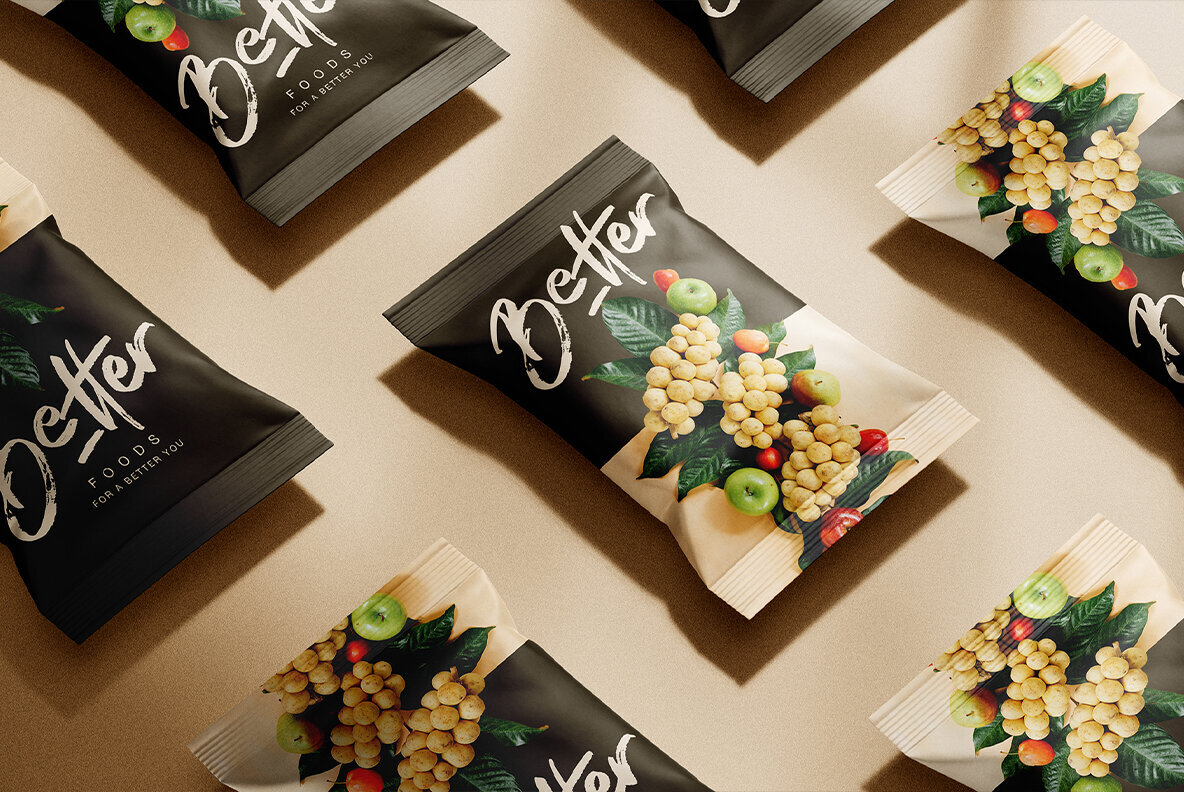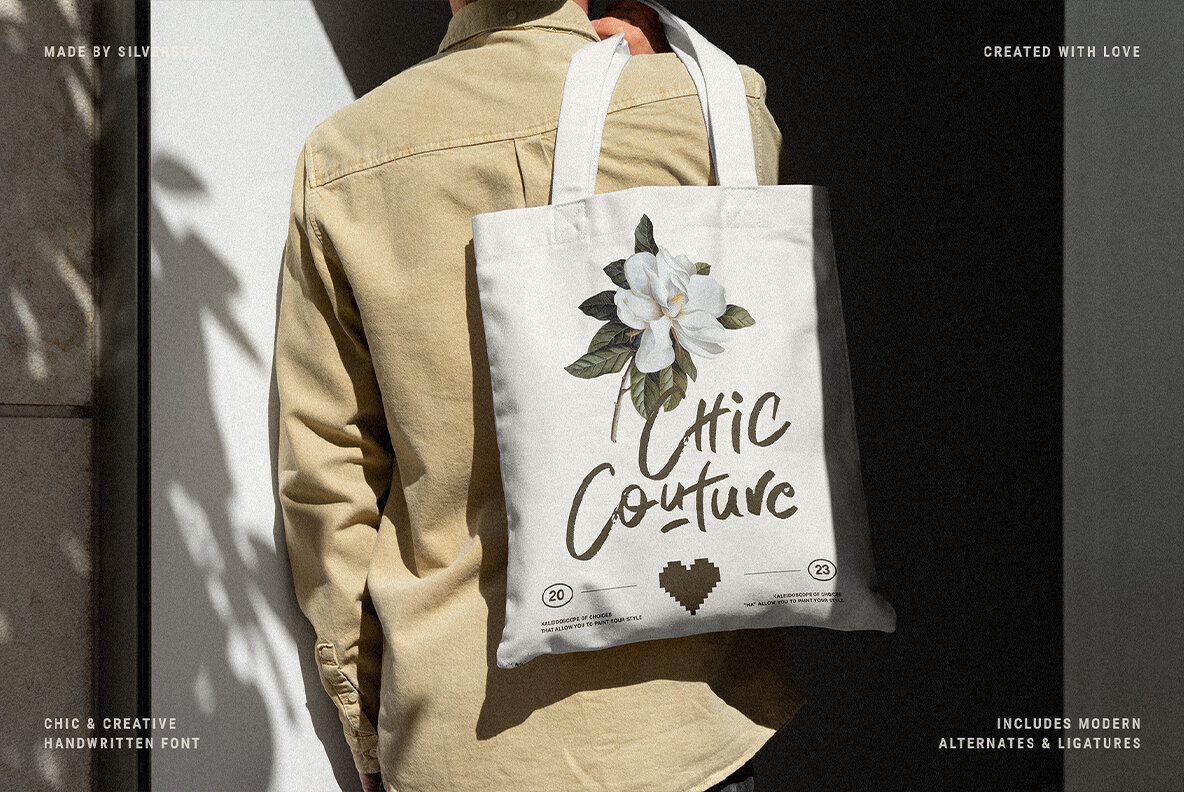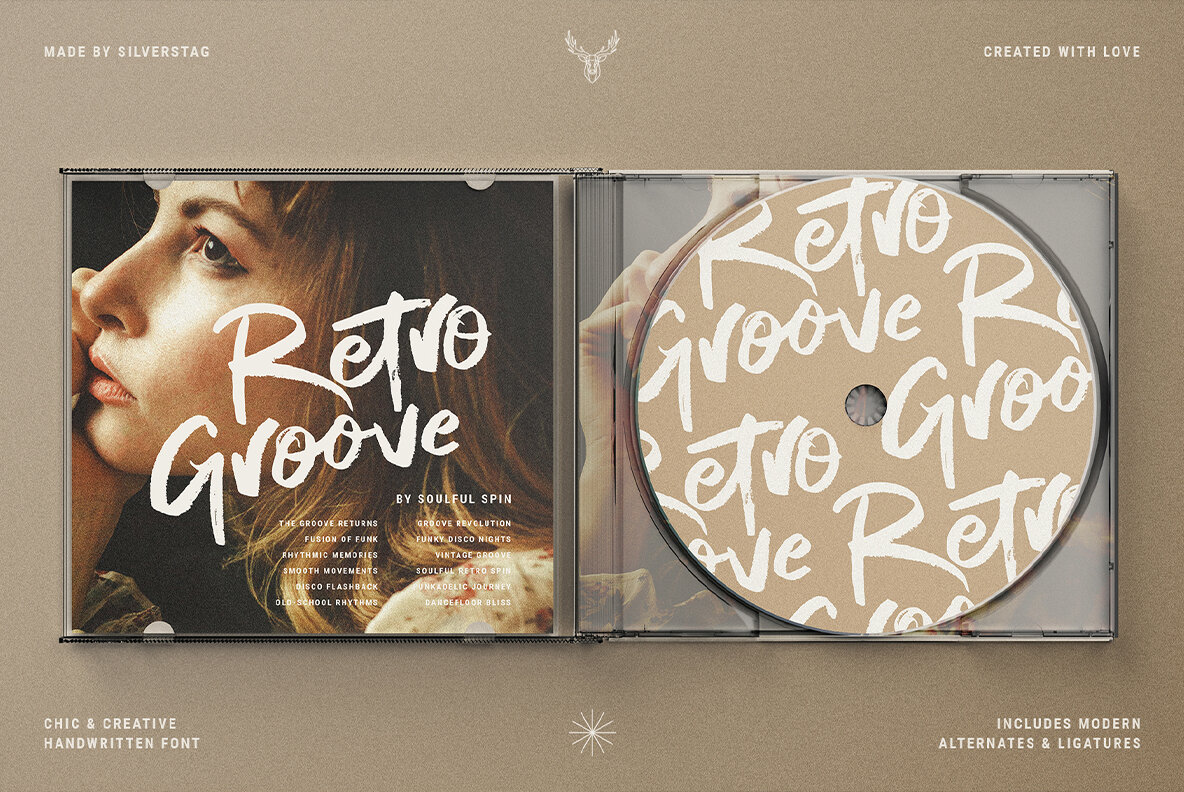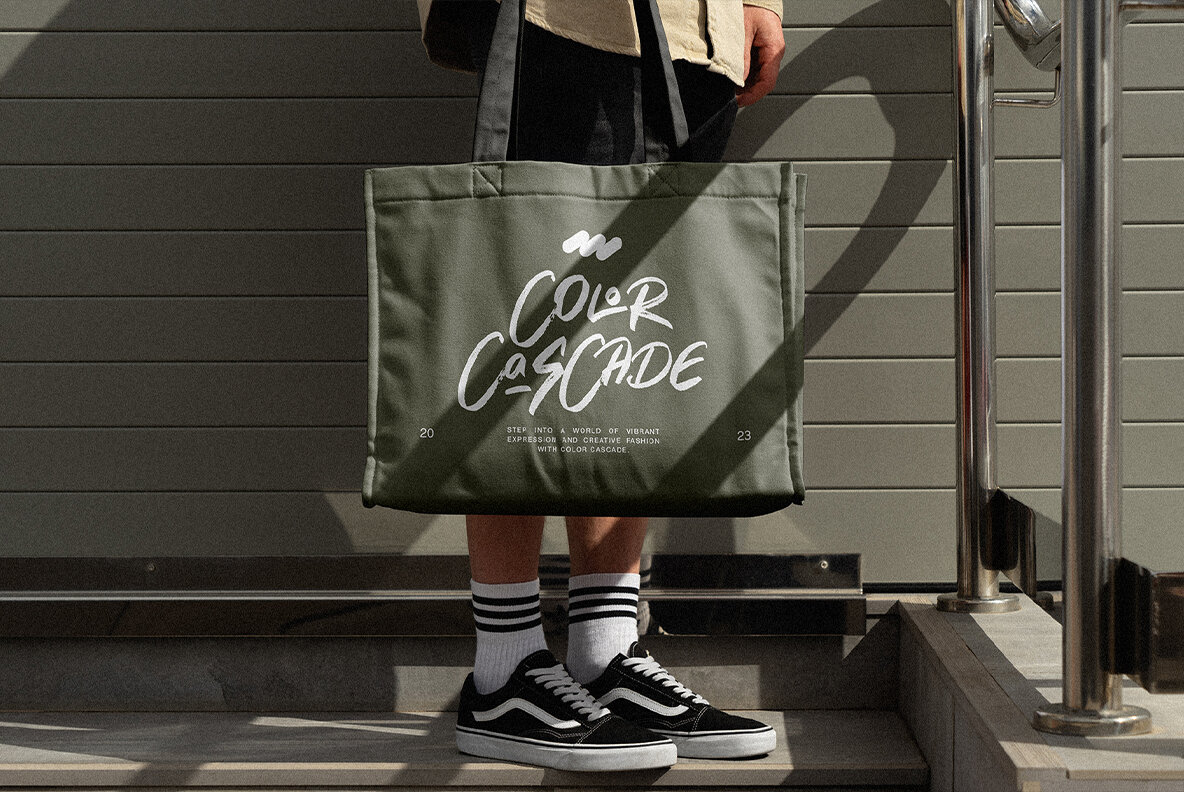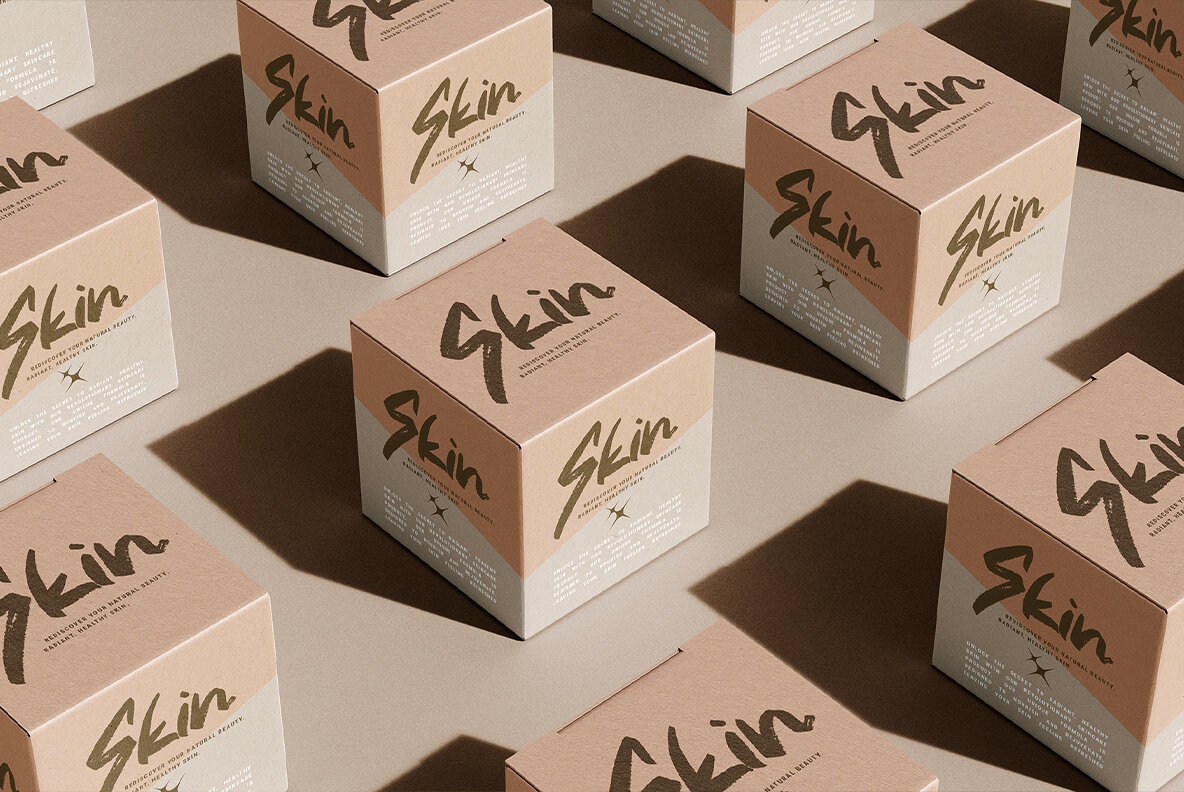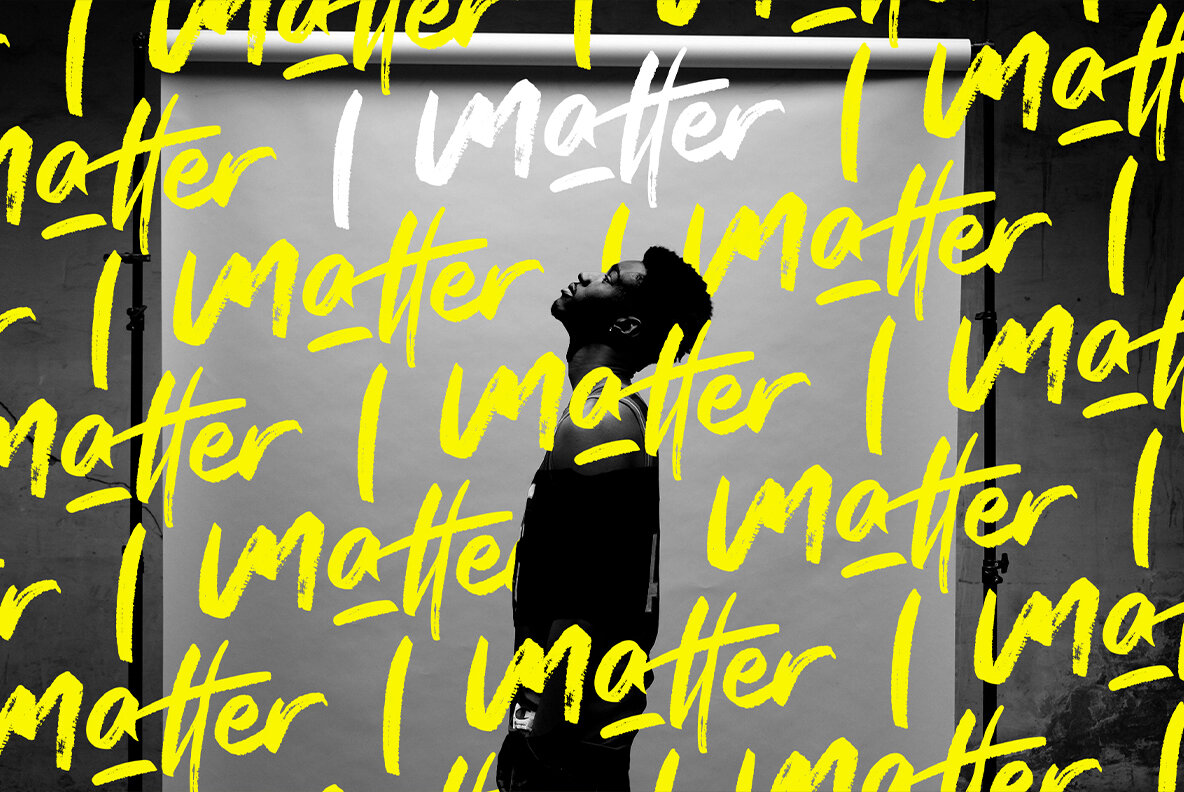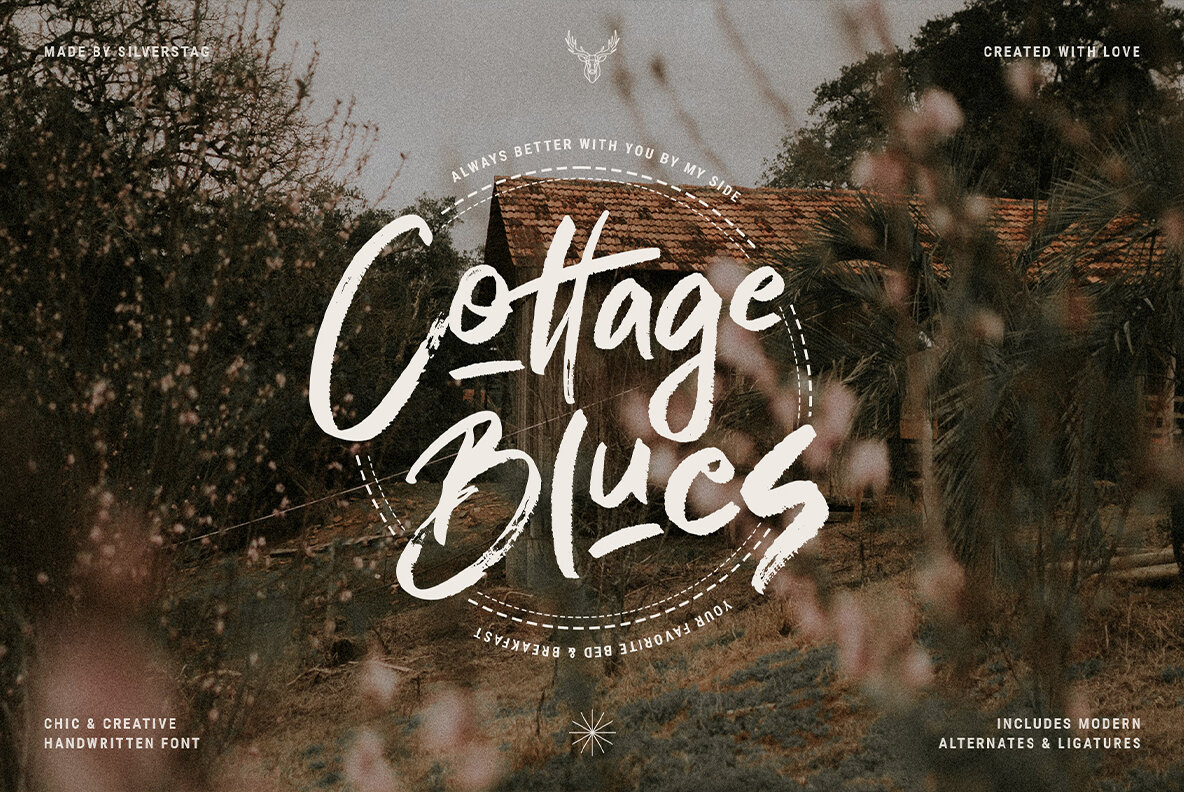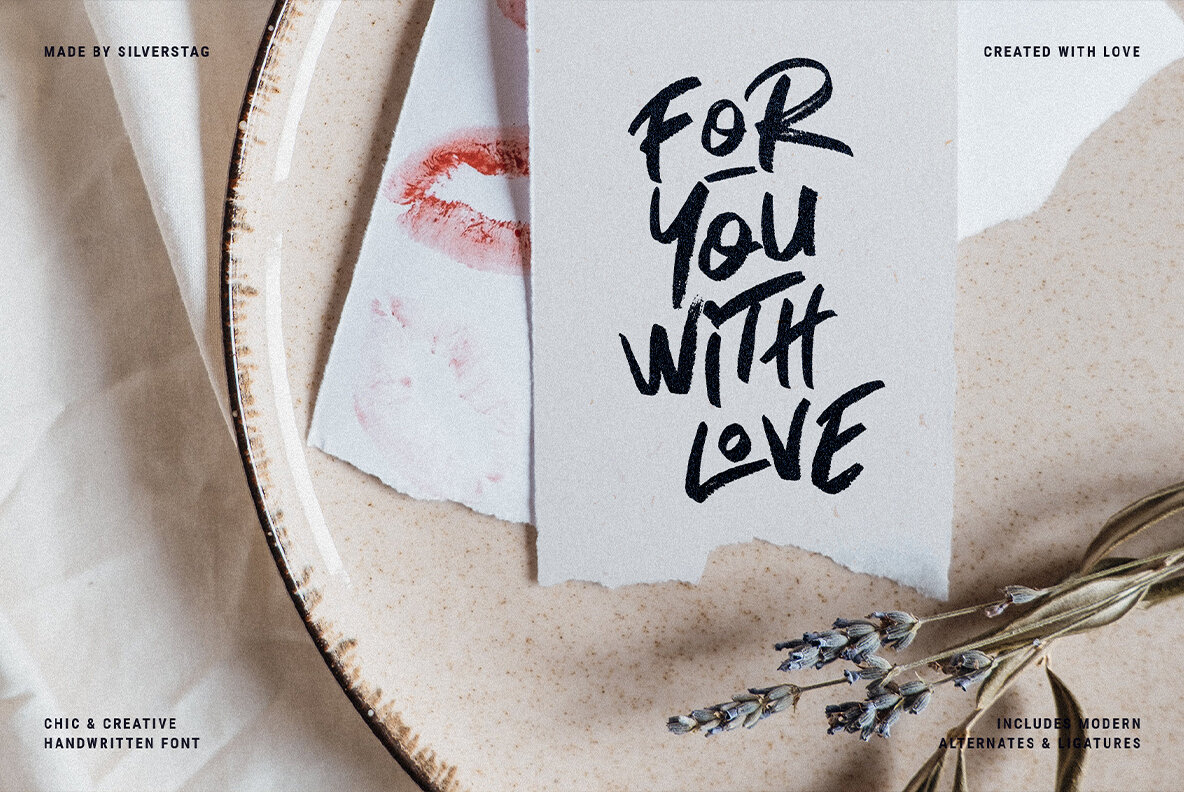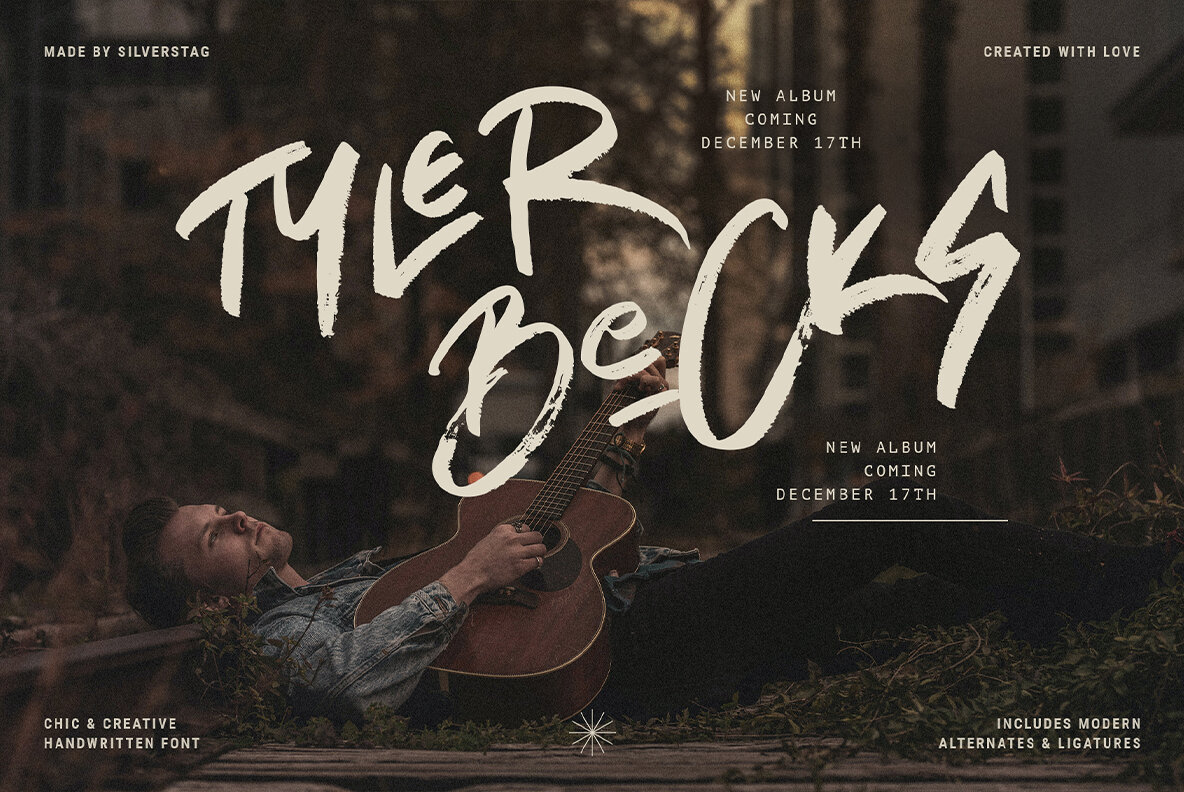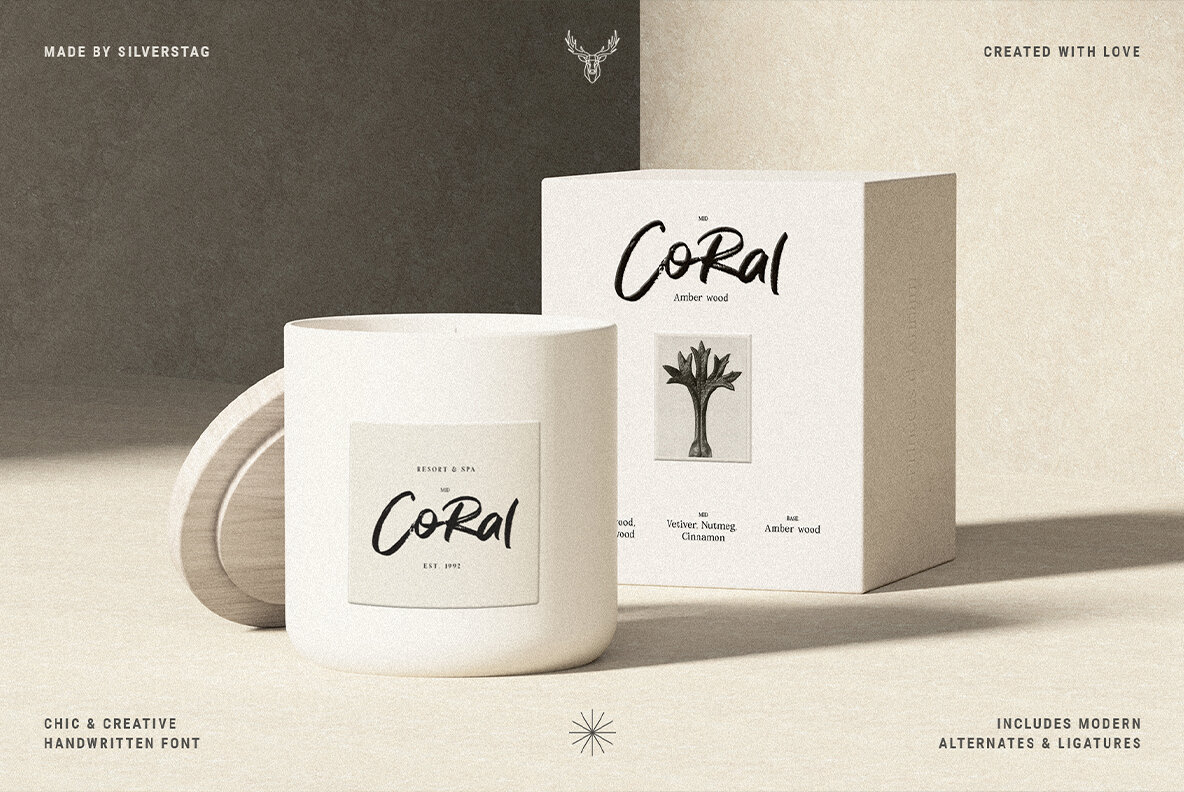
Introducing Better Charm, a Handwritten Brush Font I've spent countless hours crafting Better Charm, a handwritten brush font that captures the essence of modern fonts. With its expressive strokes and dynamic curves, Better Charm is perfect for adding a touch of personality and charm to your designs. Better Charm comes packed with over 160 alternates and ligatures, giving you the flexibility to create unique and eye-catching designs. Each letterform features a variety of stylistic variations, ensuring that your text always looks fresh and original. Currently supporting the English language, Better Charm is ready to bring your designs to life for a global audience. Whether you're creating social media graphics, invitations, posters, or branding materials, Better Charm will add a touch of personality and style to your work. With its expressive strokes, dynamic curves, and extensive alternates and ligatures, Better Charm is the perfect handwritten brush font for your next creative project. Unleash your creativity, add a touch of elegance, and let Better Charm help you create designs that truly stand out. If you end up publishing your designs on Instagram, tag me - @silverstagco and I will make sure to showcase your design and work to my audience as well! Better Charm - Modern Brush Font Includes: